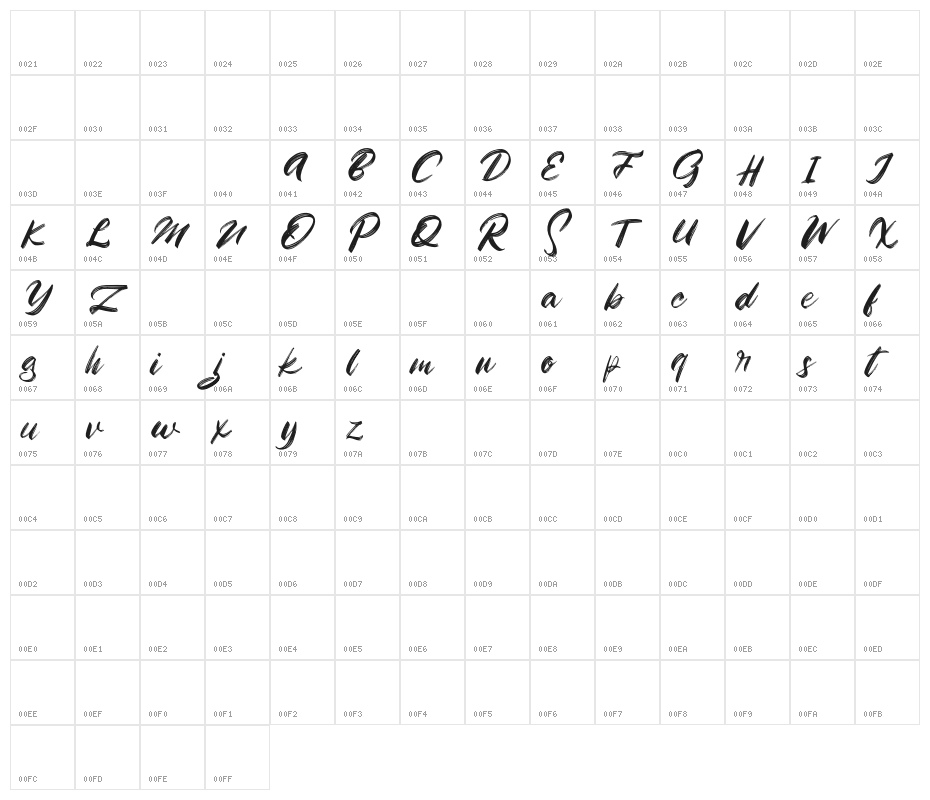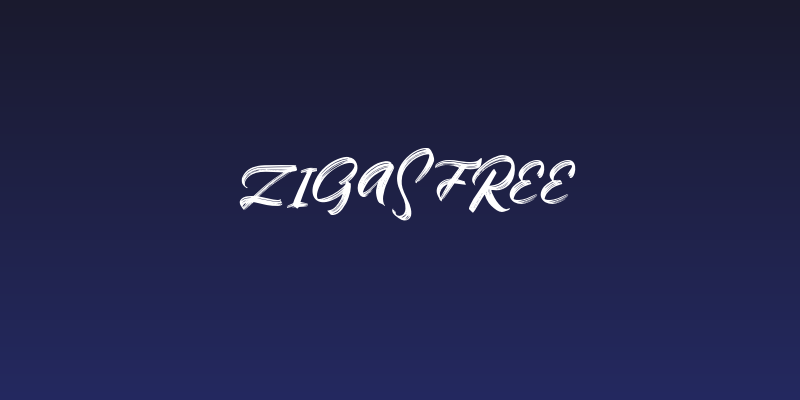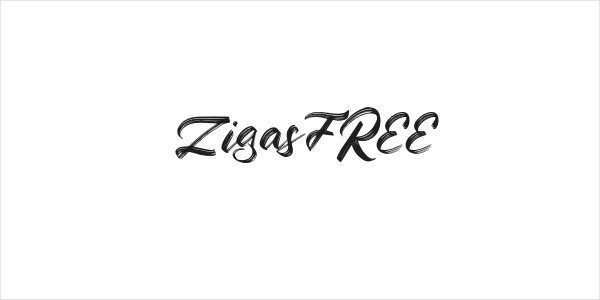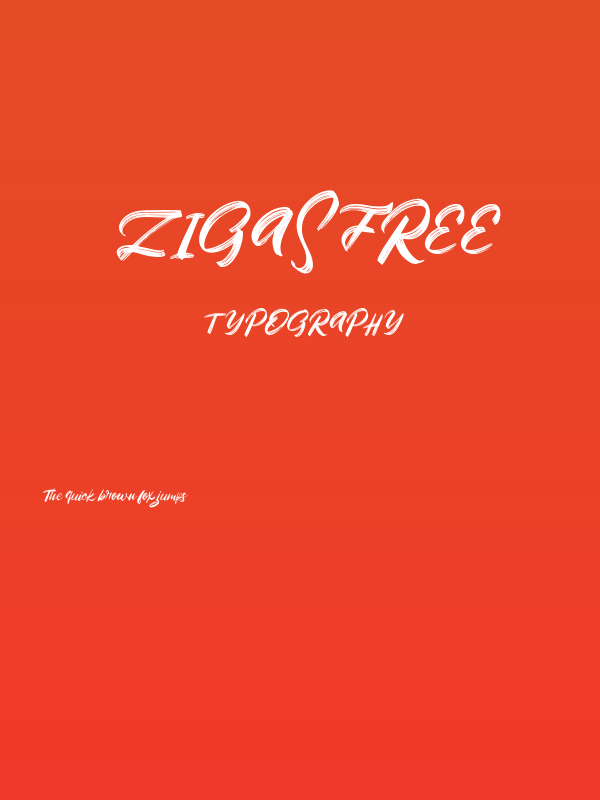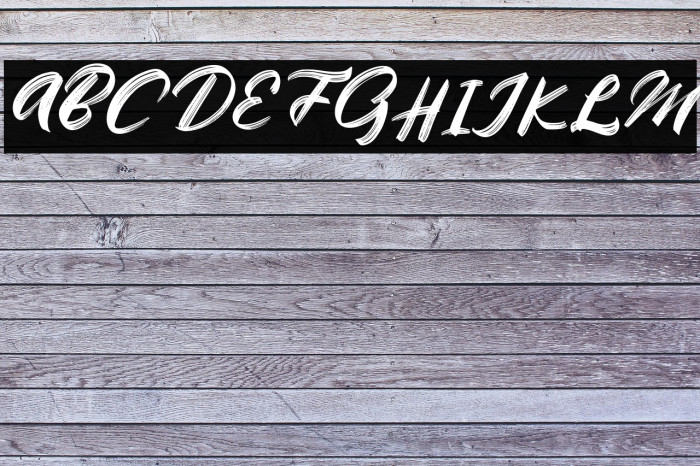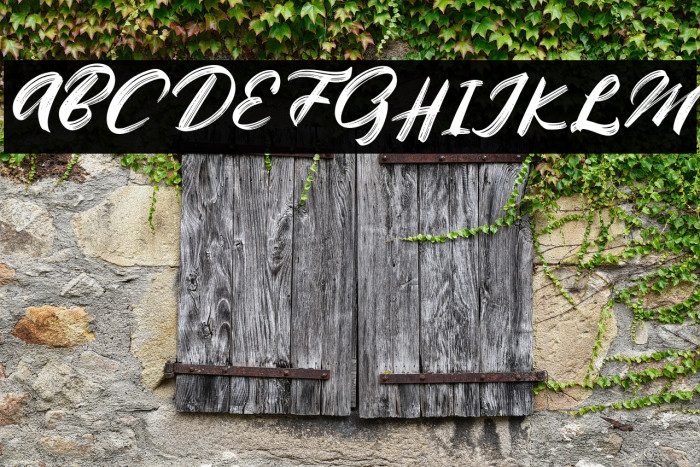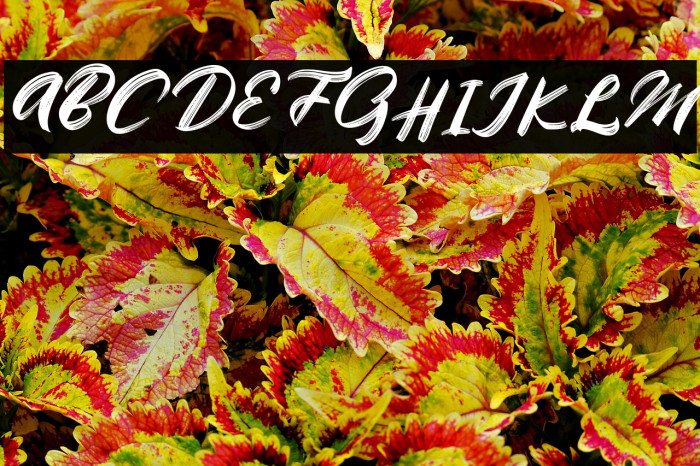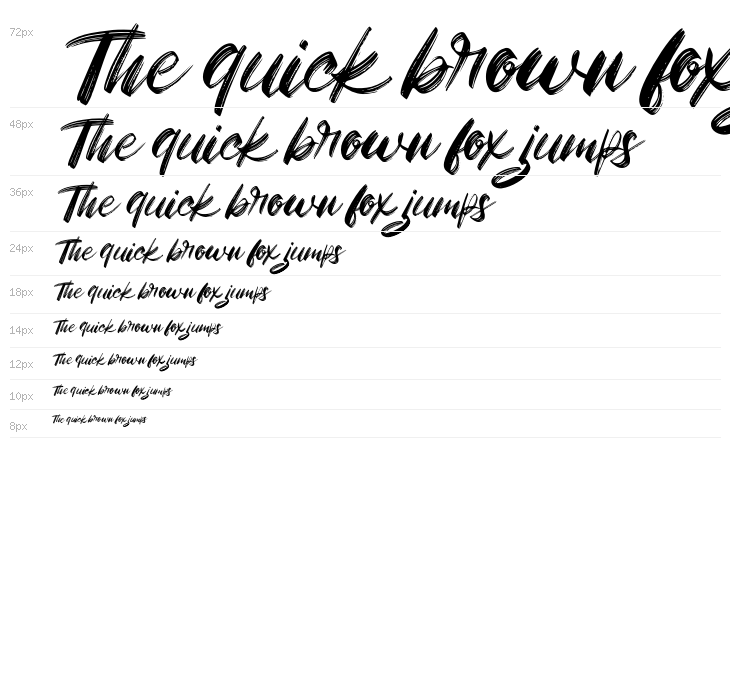
ZigasFREE Font
ZigasFREE Description
This font features a dynamic and expressive brush script style, characterized by its bold and energetic strokes. The letters are crafted with a sense of movement and fluidity, giving the impression of hand-painted calligraphy. The uppercase and lowercase letters are well-balanced, with a slight slant that enhances the font's lively appearance. The strokes vary in thickness, adding a sense of depth and texture. This font is ideal for projects that require a personal and artistic touch, such as invitations, posters, and branding materials.
| Proposed Projects | Ideal for invitations, posters, branding, and artistic projects. |